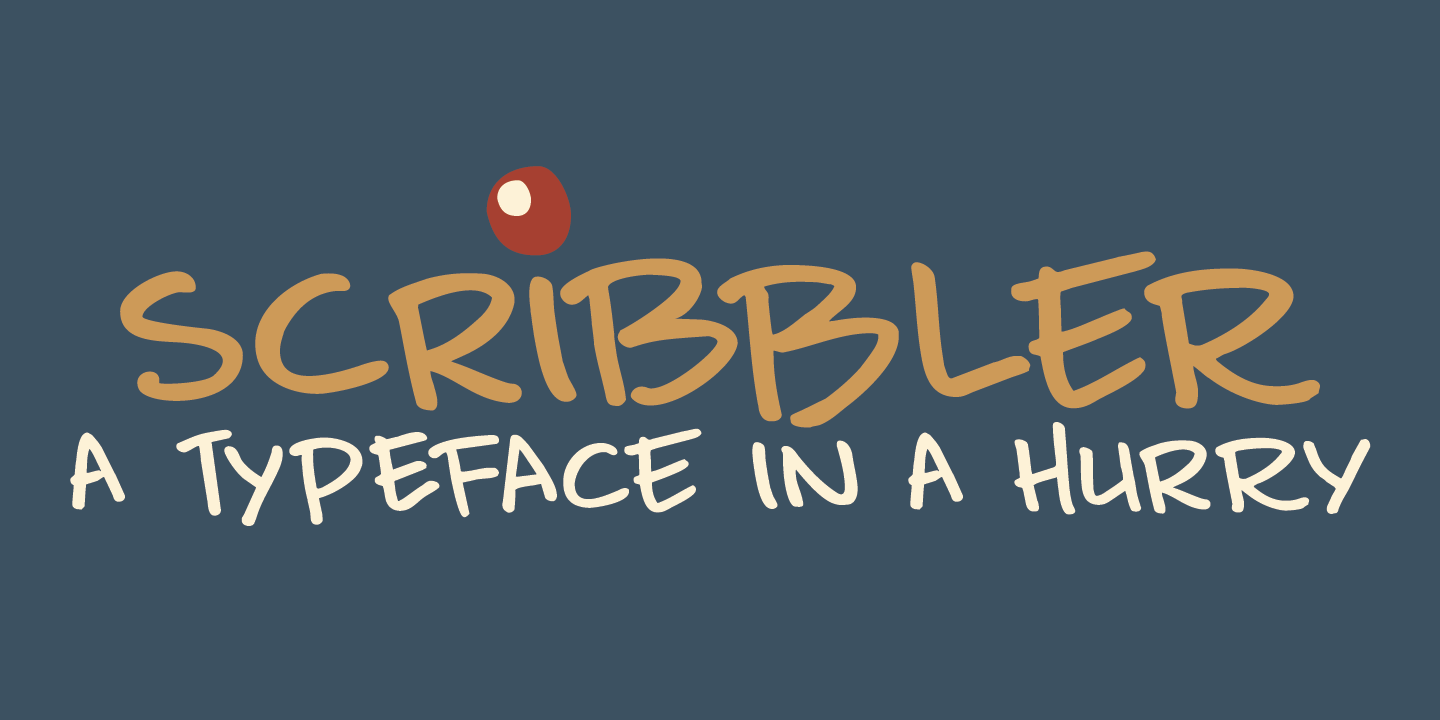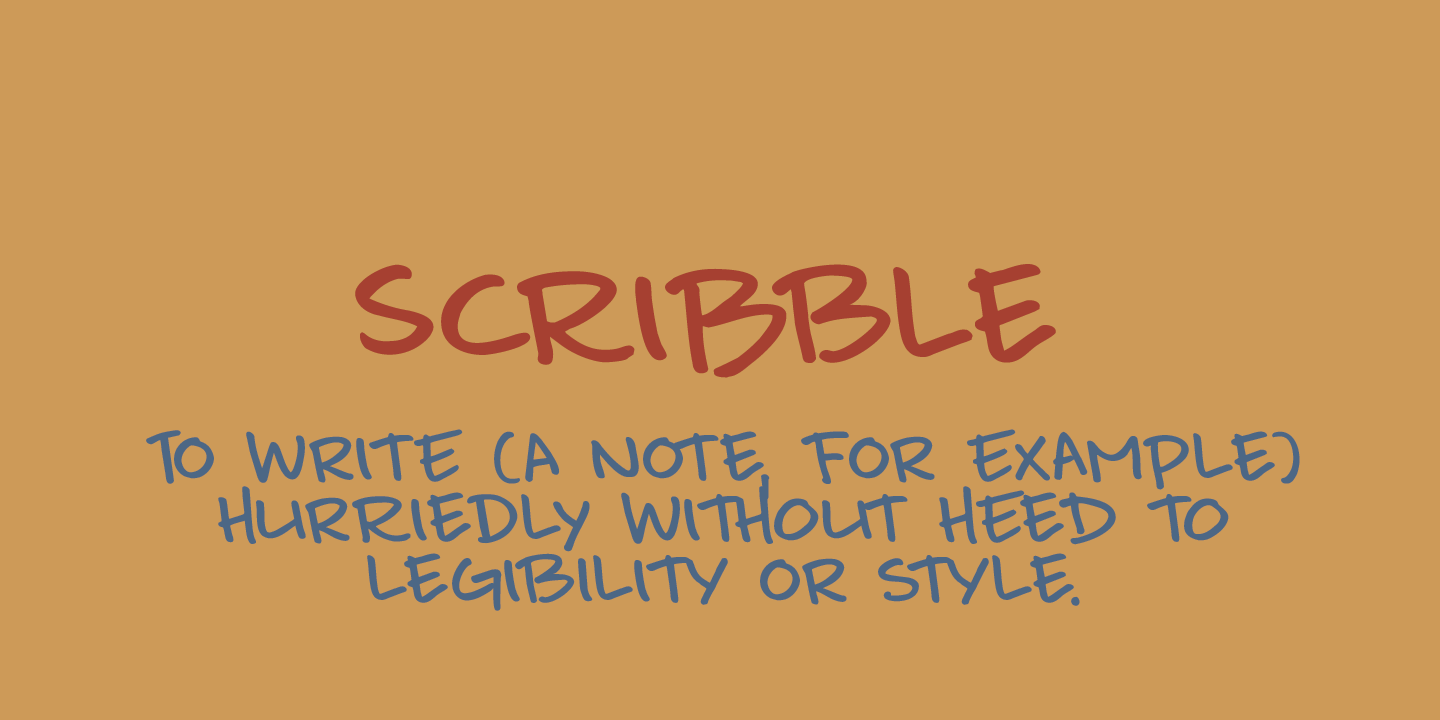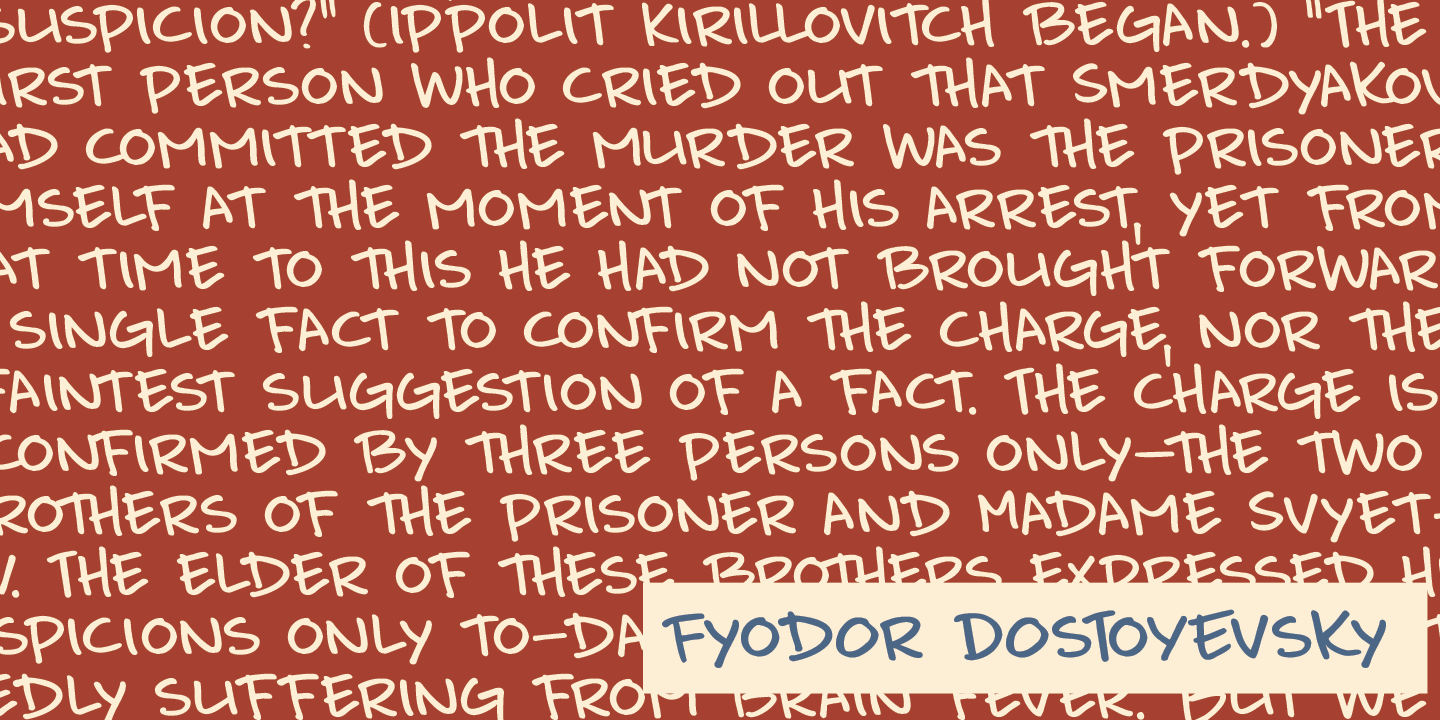
Scribbler
Scribbler, like Double Quick (another one of my fonts), is a handwritten typeface, designed to look like a quick grocery list, a hasty 'I Love You' note penned down on a Post-it or a home improvement to-do list. Scribbler is a little messier than Double Quick, but this may be just your style!